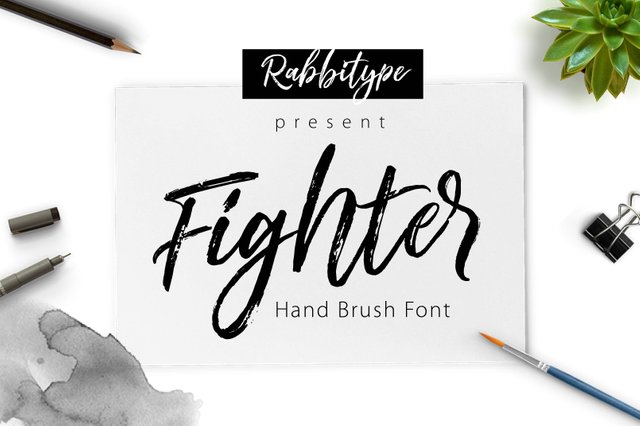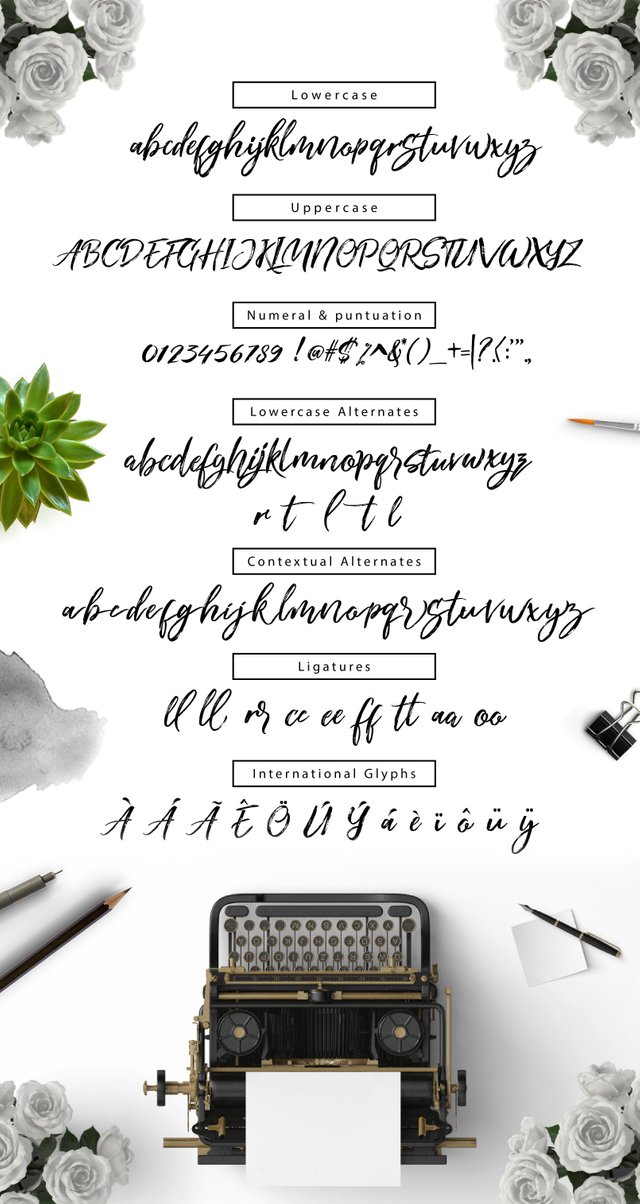
Fighter Brush Script (NEW FONT)
This is a beautiful brush font for your design project
Fighter Brush is a beautiful Brush Script, It suitable for Signature, greeting cards, T-Shirt, Logo, Branding or any design that you create.comes with a complete set of standard characters, Alternates, Punctuation & international glyphs
*Features
-UPPERCASE
-lowercase
-numeral
-punctuation
-international glyphs
-Ligatures
-Alternates Glyphs